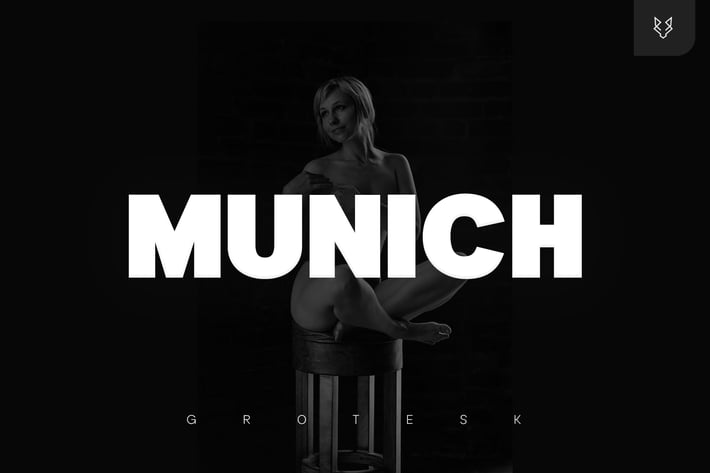
Munich Pro Display Typeface
FoxType
Munich Pro Display is a Brand New Elegant Typeface with a powerful font family. It has a dependable and uncompromising style, with controlled letterforms and modern touches. It looks amazing in logos, magazines, and movies. Munich Pro Font would be perfect for branding, headlines, Captions, paragraphs, and posters. The various weights allow you to experiment with a wide range of applications. It's created to make an impression without sacrificing its beauty and readability. It's shown a clean, minimalist, warmth, quirky, yet still purposed to be versatile
The Typeface includes Nine Weights - Thin, ExtraLight, Light, Regular, Medium, SemiBold, Bold, ExtraBold and Black.
Numerals and extended punctuation (200+ Glyphs).
Expert kerning and quality crafting.